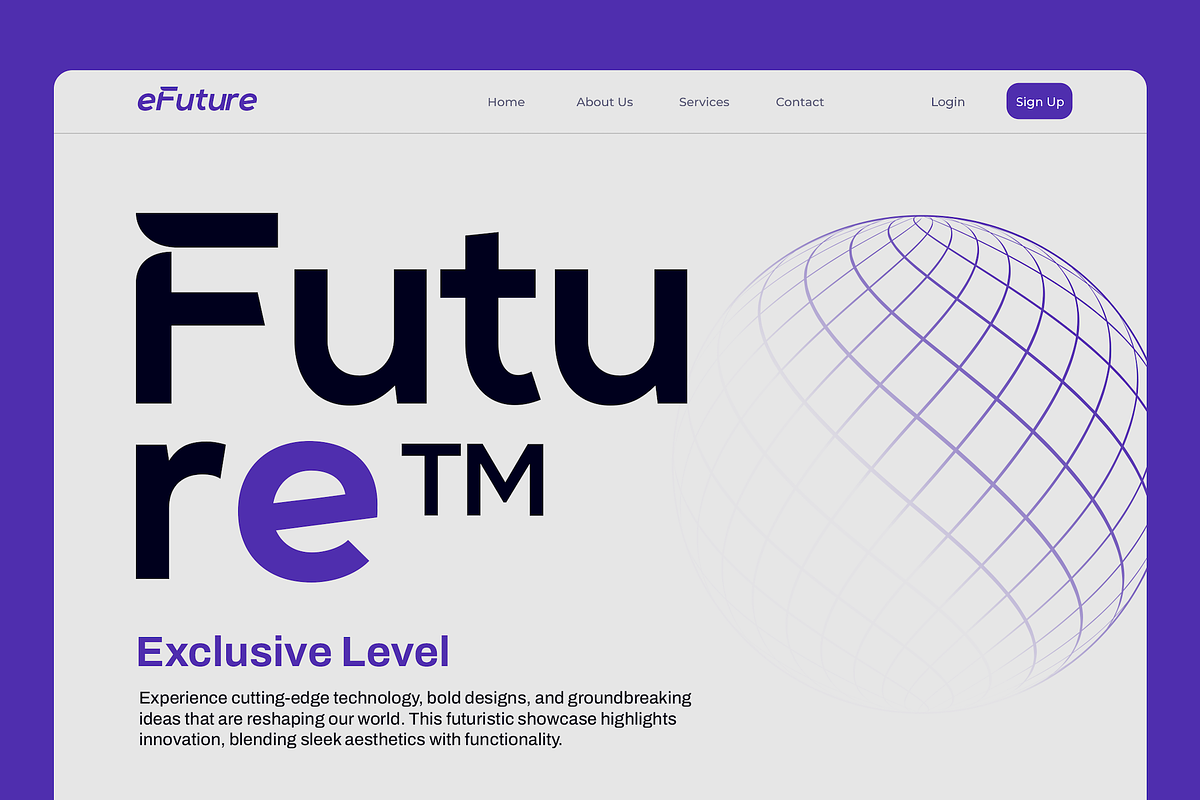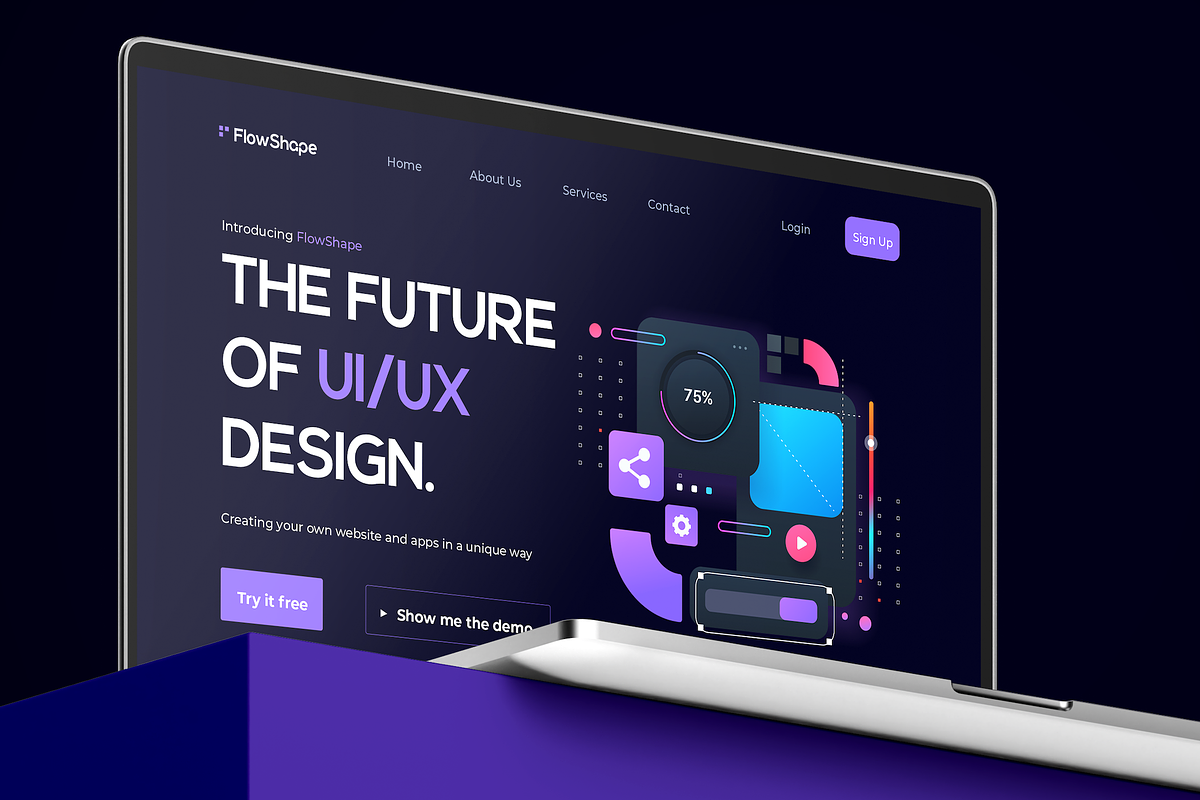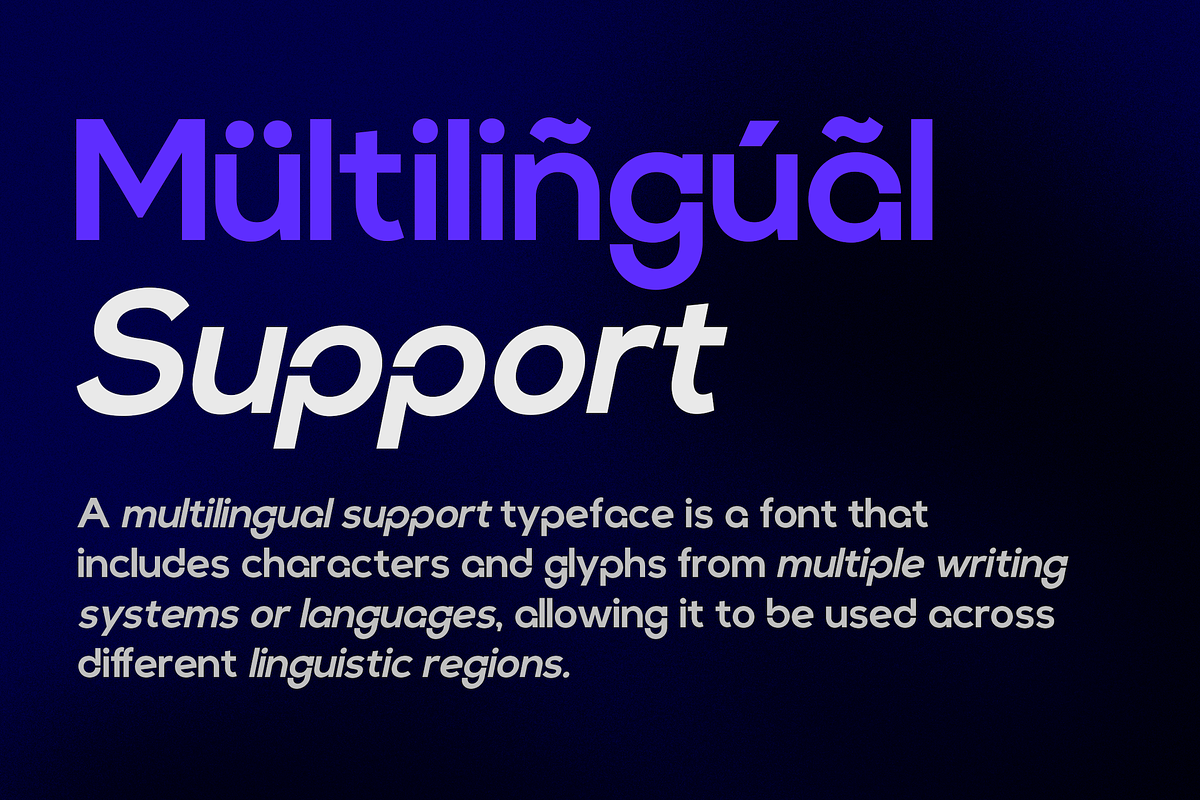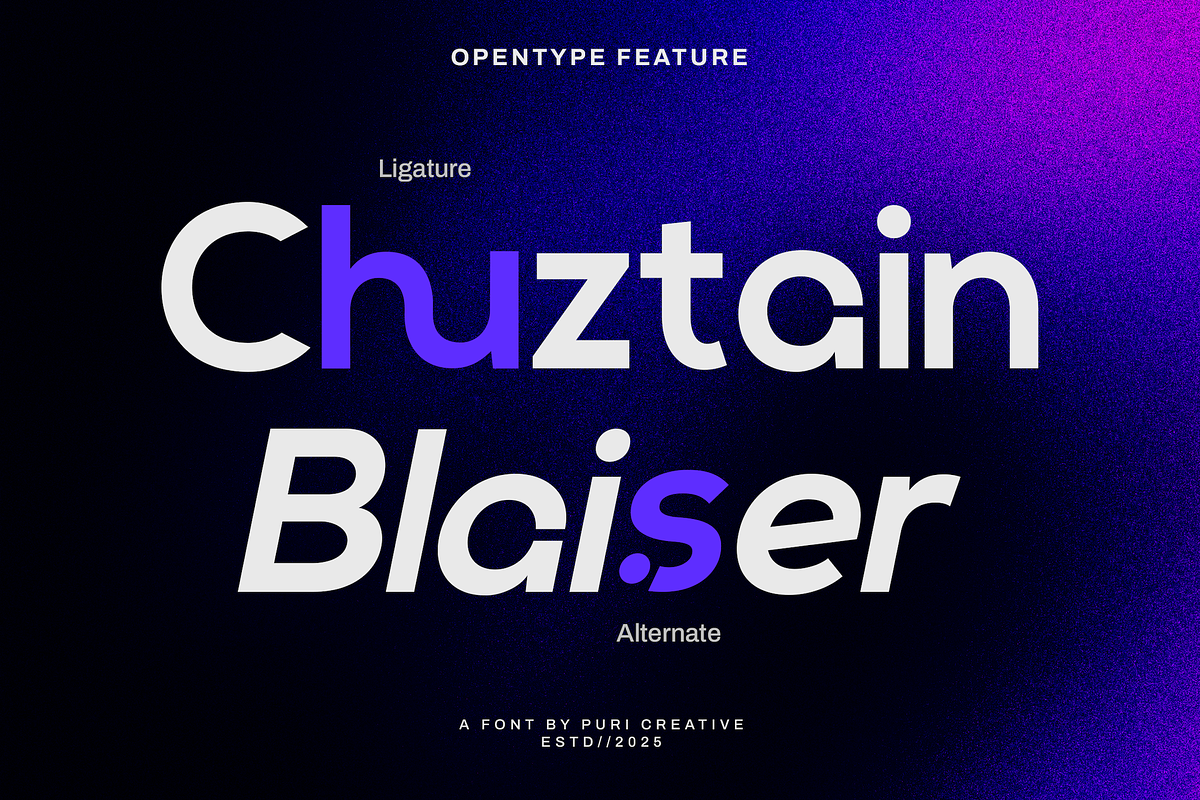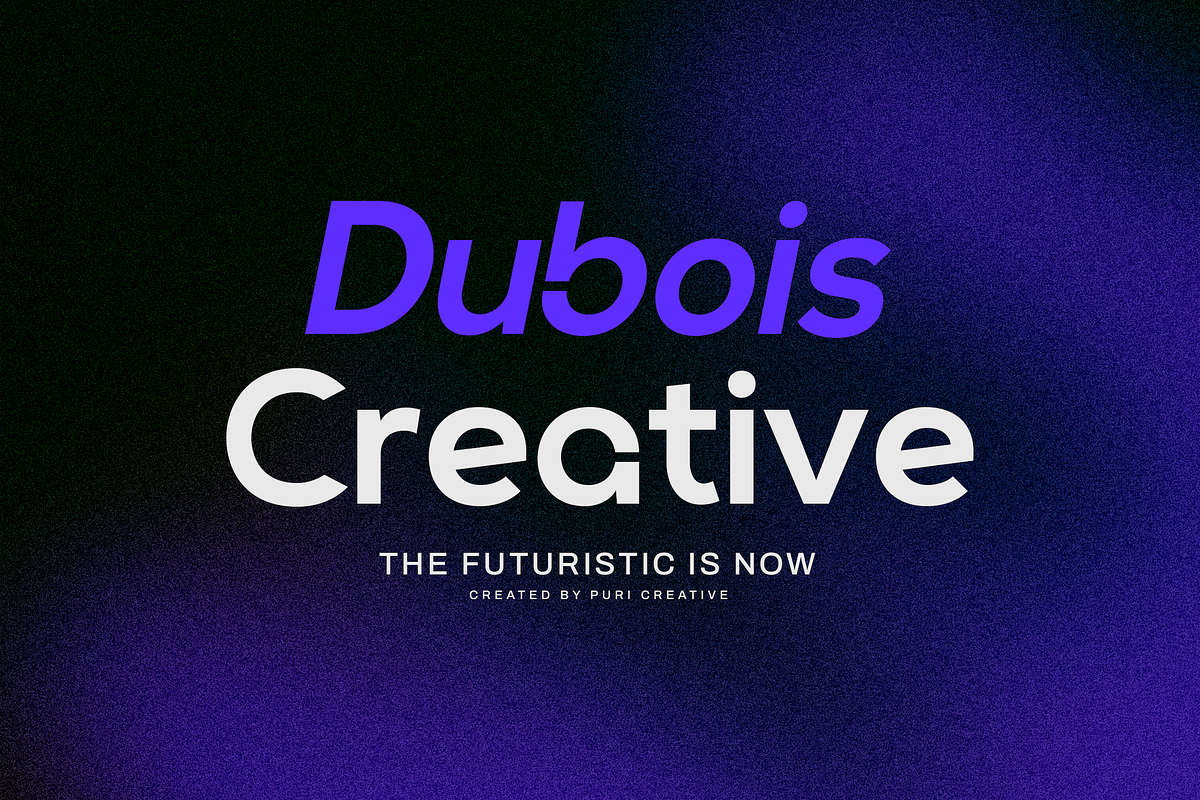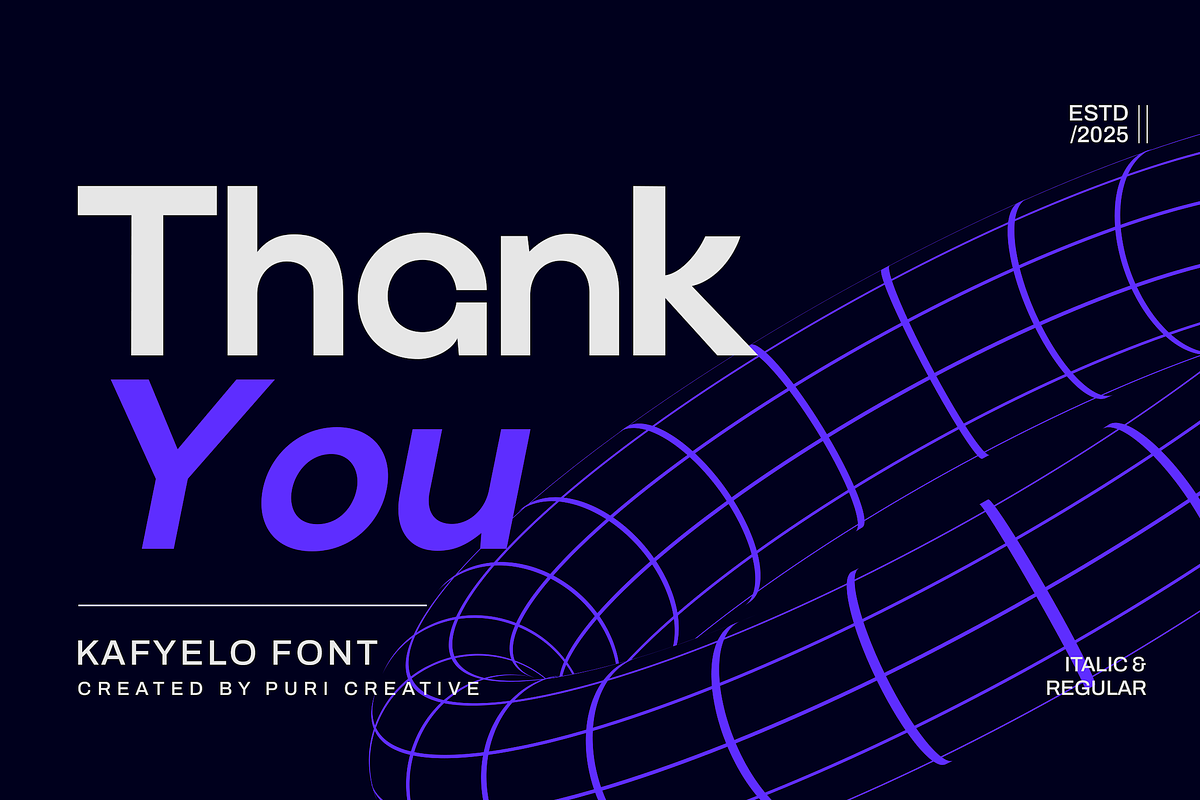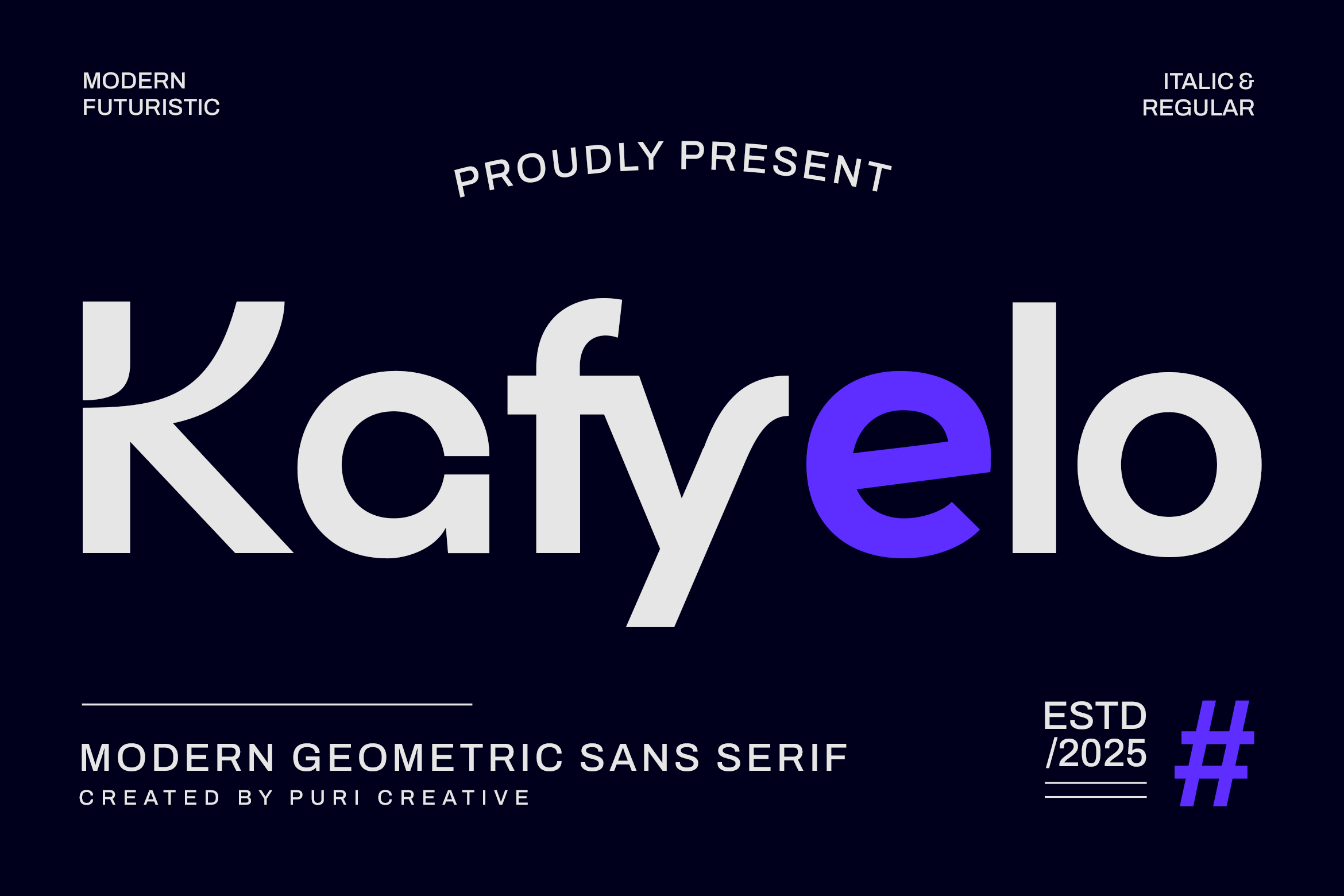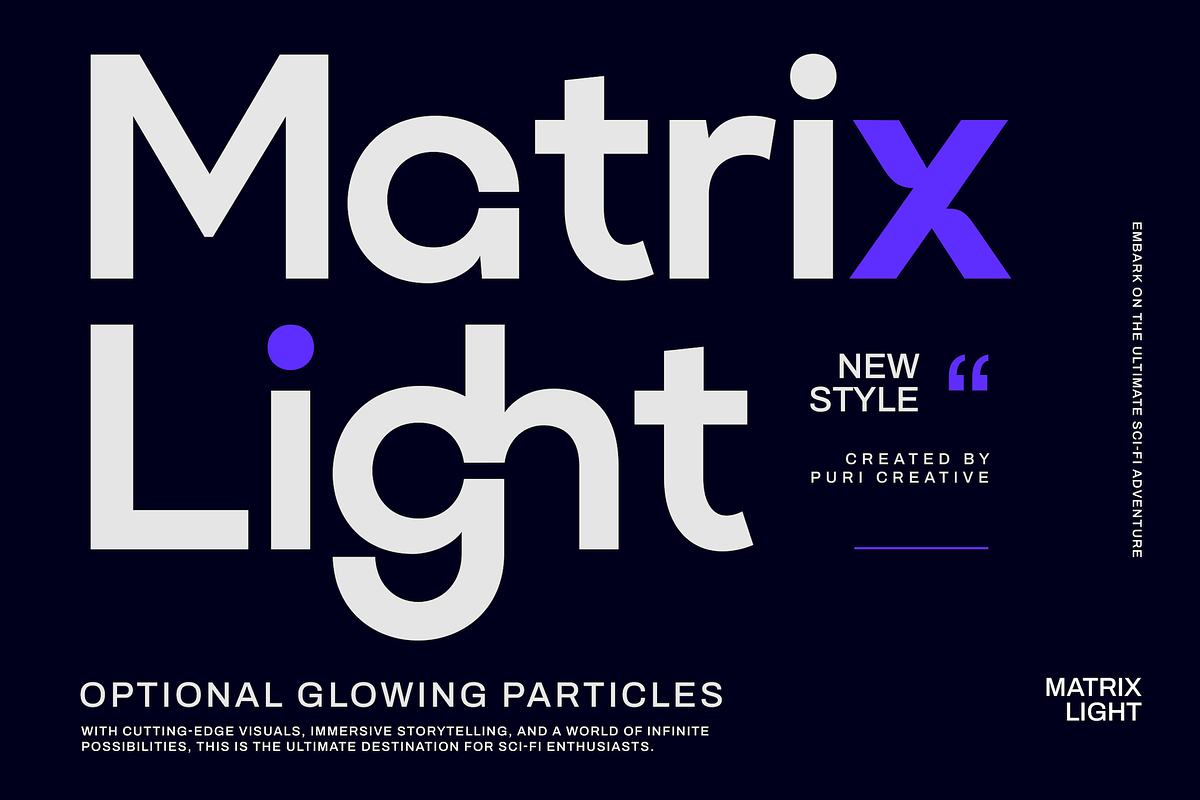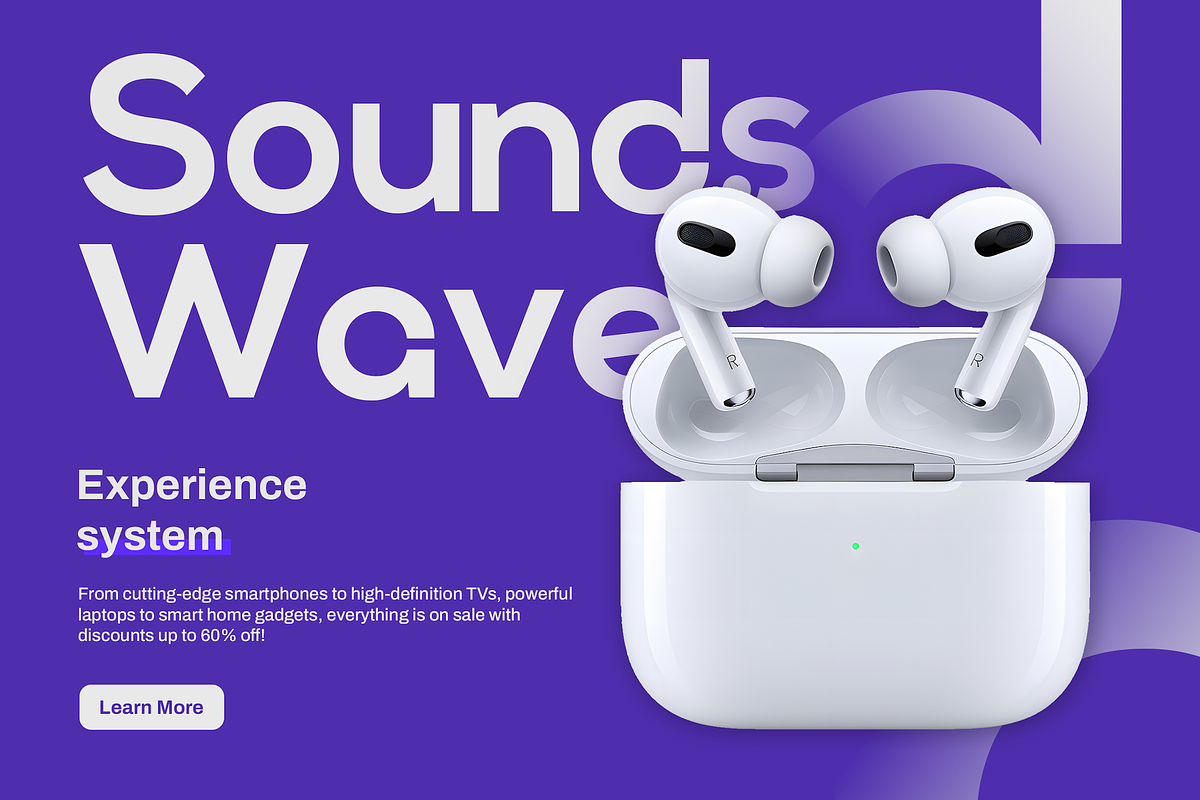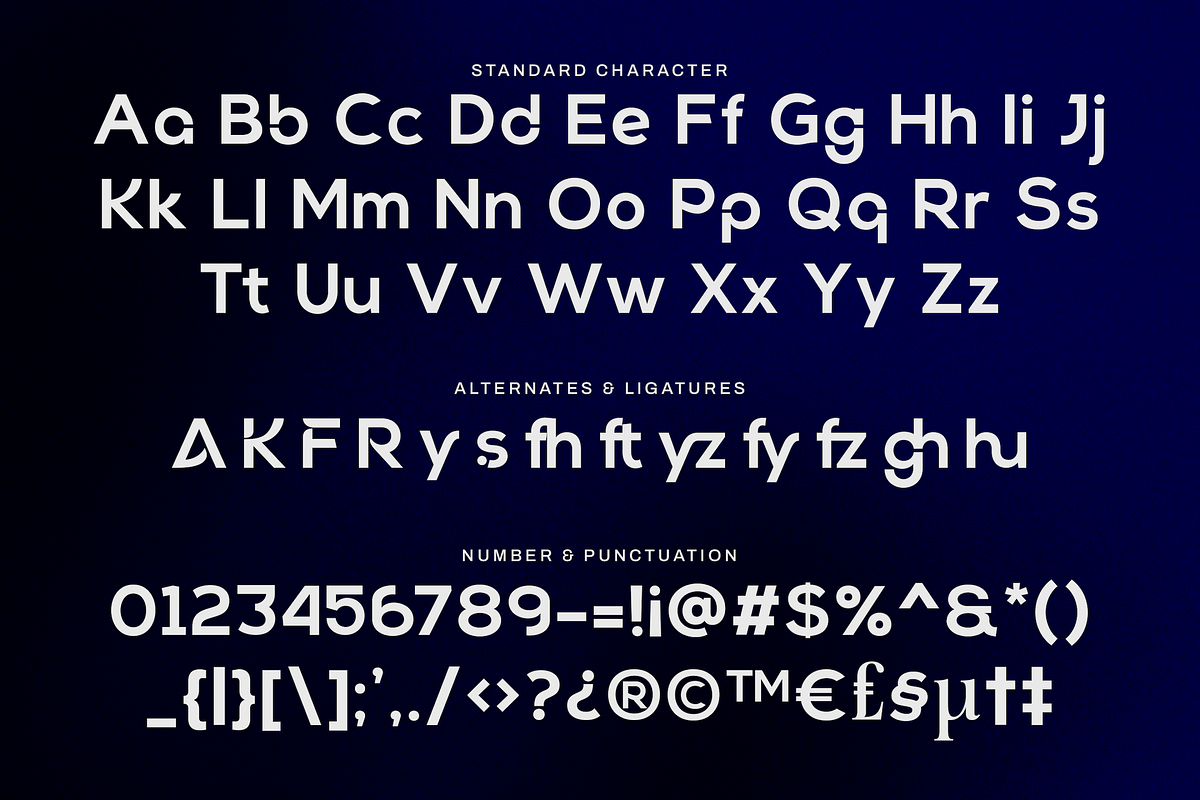
Kafyelo - Modern Geometric Sans Font
Kafyelo is a Modern Sans Serif typeface that blends minimalist elegance with clean, contemporary lines. Designed in both Regular and Italic styles, it’s crafted for versatility and clarity across digital and print media. Its refined geometry and soft edges make Kafyelo perfect for branding, editorial layouts, web interfaces, and stylish headlines. This font is PUA encoded, which means you can access all of the glyphs with ease!